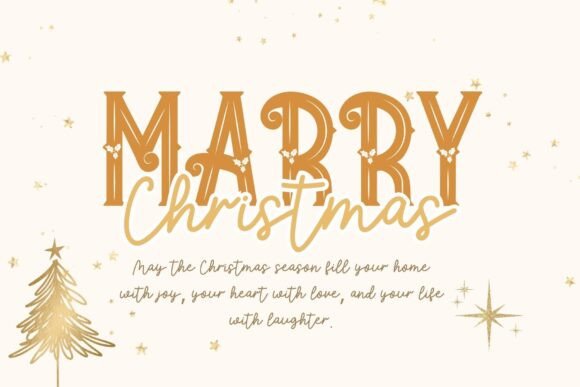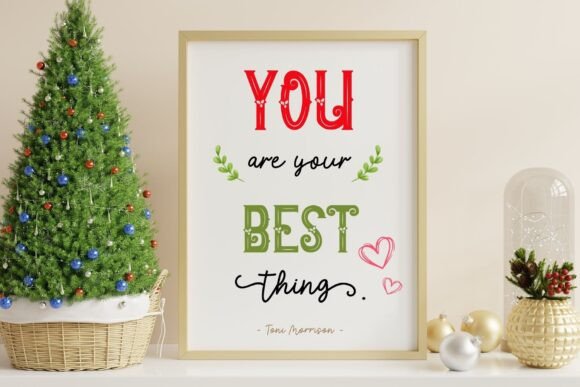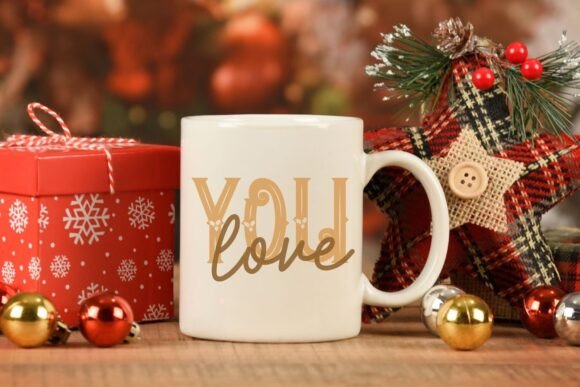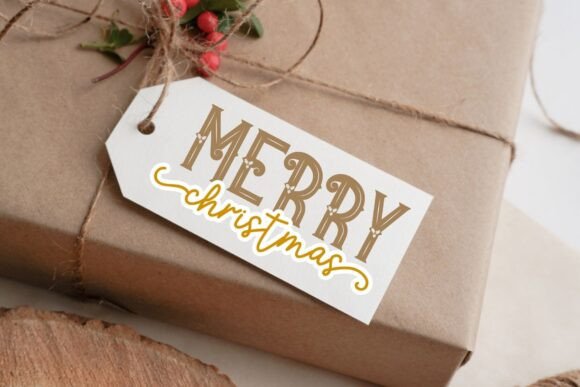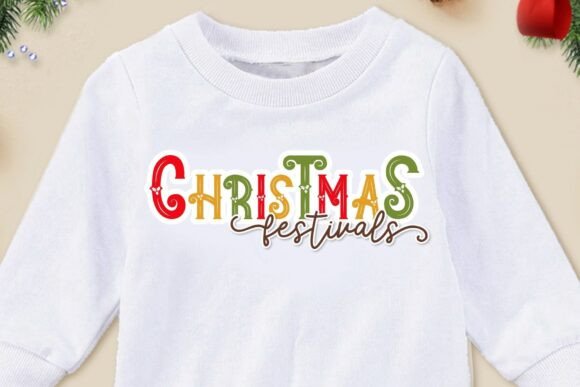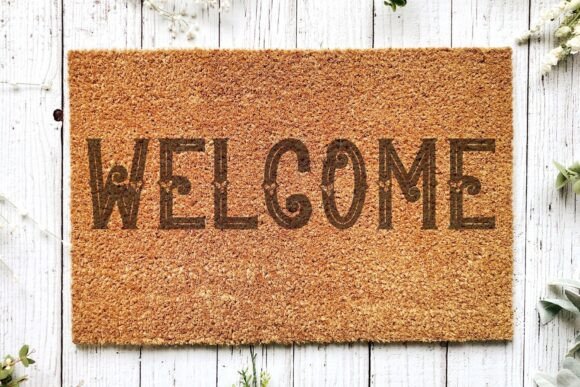
Introducing the Christmas Festivals Font Duo: Elevate Your Holiday Designs
The holiday season is upon us, and with it comes the need for captivating designs that evoke the spirit of Christmas. For designers and crafters looking to create eye-catching holiday content, the Christmas Festivals Font Duo is a game-changer. This fantastic font pairing includes two distinct fonts that work harmoniously to produce stunning designs. In this article, we’ll delve into the features of the Christmas Festivals Font Duo and explore how you can use it to take your holiday designs to the next level.
The Perfect Pairing: Decorative and Script Fonts
The Christmas Festivals Font Duo comprises two unique fonts: a bold and easy-to-read Decorative font, and a delicate Script font featuring flowing letters with curled tails. When used separately, each font can add a touch of festive flair to your designs. However, when combined, they create a beautiful and unique design that’s sure to turn heads.
Decorative Font: Bold and Easy to Read
The Decorative font in the Christmas Festivals Font Duo is perfect for grabbing attention. Its bold and sturdy design makes it easy to read, even at smaller sizes. This font is ideal for headings, titles, and short phrases, adding a touch of festive fun to your designs. The Decorative font features clean lines, geometric shapes, and a dash of holiday cheer, making it a versatile choice for a wide range of design projects.
Script Font: Delicate and Elegant
The Script font in the Christmas Festivals Font Duo is a delicate and elegant addition to any design. Its flowing letters and curled tails evoke a sense of sophistication and refinement, perfect for adding a touch of luxury to your holiday designs. This font is ideal for use in phrases, captions, and longer blocks of text, where a more refined and cursive look is desired.
Combining the Fonts: Creating a Unique Design
The true magic of the Christmas Festivals Font Duo lies in combining the Decorative and Script fonts. By pairing these two fonts, you can create a unique and eye-catching design that showcases the best of both worlds. Use the Decorative font for headings and titles, and the Script font for supporting text or captions. This harmonious pairing will add depth, interest, and a touch of festive flair to your designs.
Design Ideas Using the Christmas Festivals Font Duo
The Christmas Festivals Font Duo is incredibly versatile and can be used in a wide range of design projects. Here are a few ideas to get you started:
- Holiday Cards and Invitations: Use the Decorative font for the main message and the Script font for the recipient’s address or a special message.
- Social Media Graphics: Combine the fonts to create eye-catching social media graphics, such as holiday-themed Facebook posts or Instagram stories.
- Blog and Website Headers: Add a touch of festive flair to your blog or website headers using the Christmas Festivals Font Duo.
- Crafting and DIY Projects: Use the fonts to create custom signs, banners, or decorations for your holiday crafting and DIY projects.
Tips for Using the Christmas Festivals Font Duo
To get the most out of the Christmas Festivals Font Duo, here are a few tips to keep in mind:
- Experiment with Font Sizes: Play around with different font sizes to create visual interest and hierarchy in your designs.
- Balance Bold and Delicate: Balance the bold Decorative font with the delicate Script font to create a harmonious and visually appealing design.
- Add Festive Colors: Use festive colors like red, green, and gold to add an extra touch of holiday cheer to your designs.
The Christmas Festivals Font Duo is a powerful design tool that’s perfect for creating eye-catching holiday content. With its bold and easy-to-read Decorative font, delicate Script font, and endless design possibilities, this font pairing is sure to become a favorite among designers and crafters. Whether you’re creating holiday cards, social media graphics, or crafting and DIY projects, the Christmas Festivals Font Duo is the perfect choice for adding a touch of festive flair to your designs.